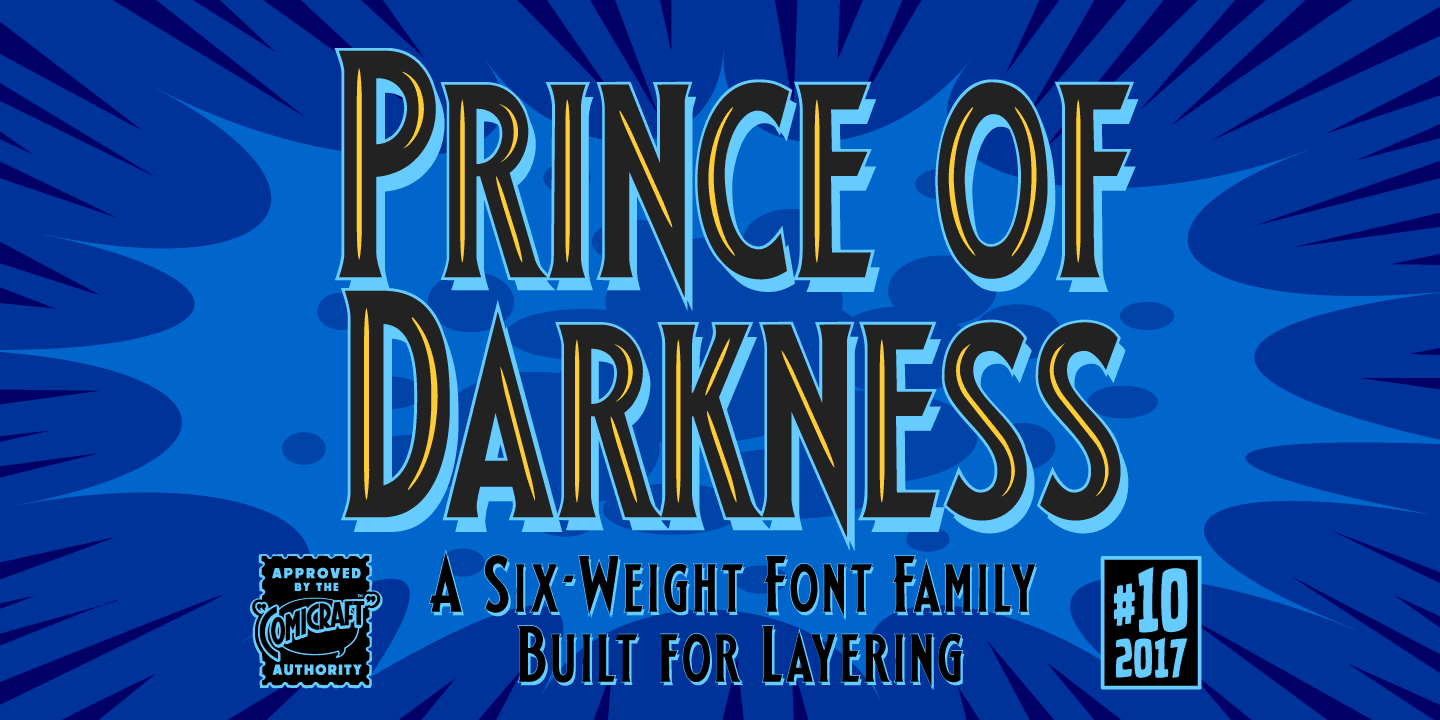
Prince Of Darkness Font is perfect for gothic horror movie titles, heavy metal band logos, dark fantasy book covers, vampire-themed designs, occult event posters, haunted attraction signage, gothic architecture projects, supernatural thriller marketing, dark art exhibitions, and any projects that need ominous typography with supernatural darkness and gothic majesty.
What makes Prince Of Darkness Font exciting is its commanding dark presence that embodies the regal authority and supernatural power of gothic nobility with letterforms that seem to emerge from shadowy castle chambers and midnight ceremonies. This formidable typeface features dramatic characteristics with royal darkness that evokes ancient bloodlines, forbidden knowledge, and the mesmerizing allure of supernatural power that rules from the shadows. The font's dark majesty character makes it perfect for brands seeking to communicate mystery, power, and the irresistible magnetism of forbidden realms where darkness reigns supreme.
Prince Of Darkness Font family includes gothic style variations featuring regular, bold, ornate, and shadow versions. The font family also contains dark decorative elements, occult symbols, gothic ornaments, and supernatural dingbats that enhance the mysterious atmosphere. Additional options include distressed variants that simulate ancient decay, along with special character sets designed for different gothic moods and supernatural themes.
Rule the shadows with Prince Of Darkness Font Free Download and crown your creative projects with typography that commands the night and reigns over darkness with supernatural authority and gothic magnificence. This majestic typeface delivers royal darkness across all gothic applications, ensuring your message resonates with the compelling power that draws souls into realms beyond mortal understanding. Download Prince Of Darkness Font today and ascend to dark nobility with typography that celebrates the eternal allure of gothic mystery, creating haunting connections with audiences who are drawn to the beautiful darkness and supernatural power that exists beyond the veil of ordinary reality.